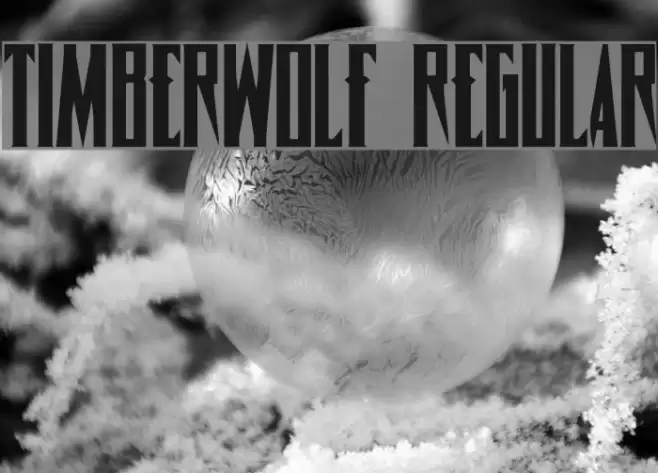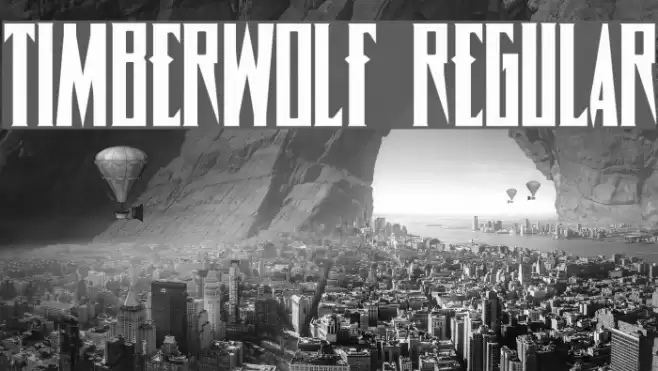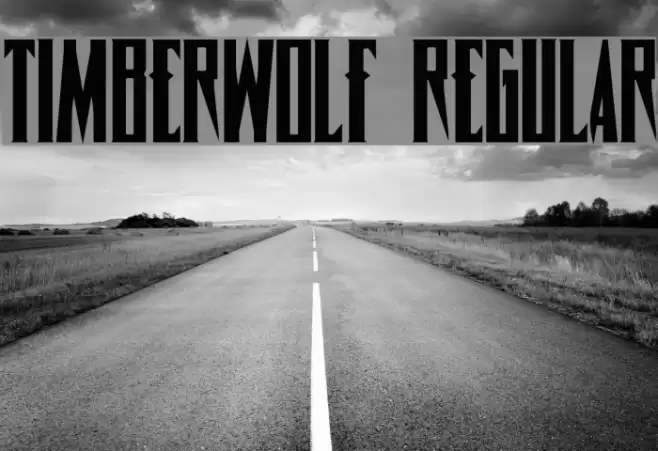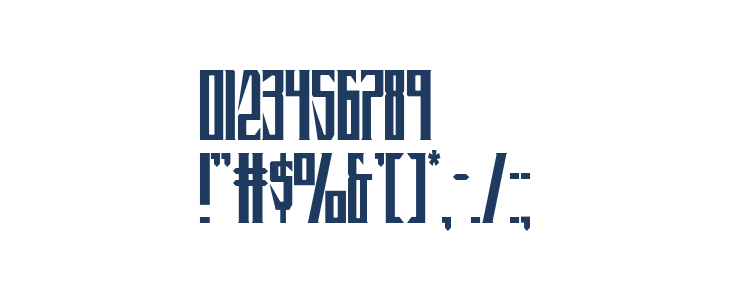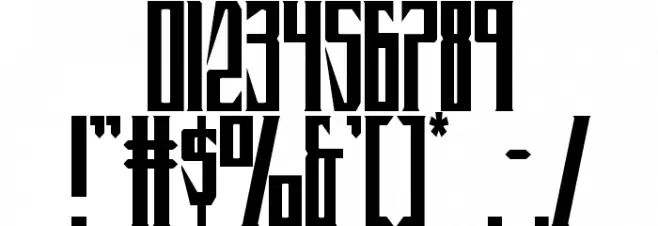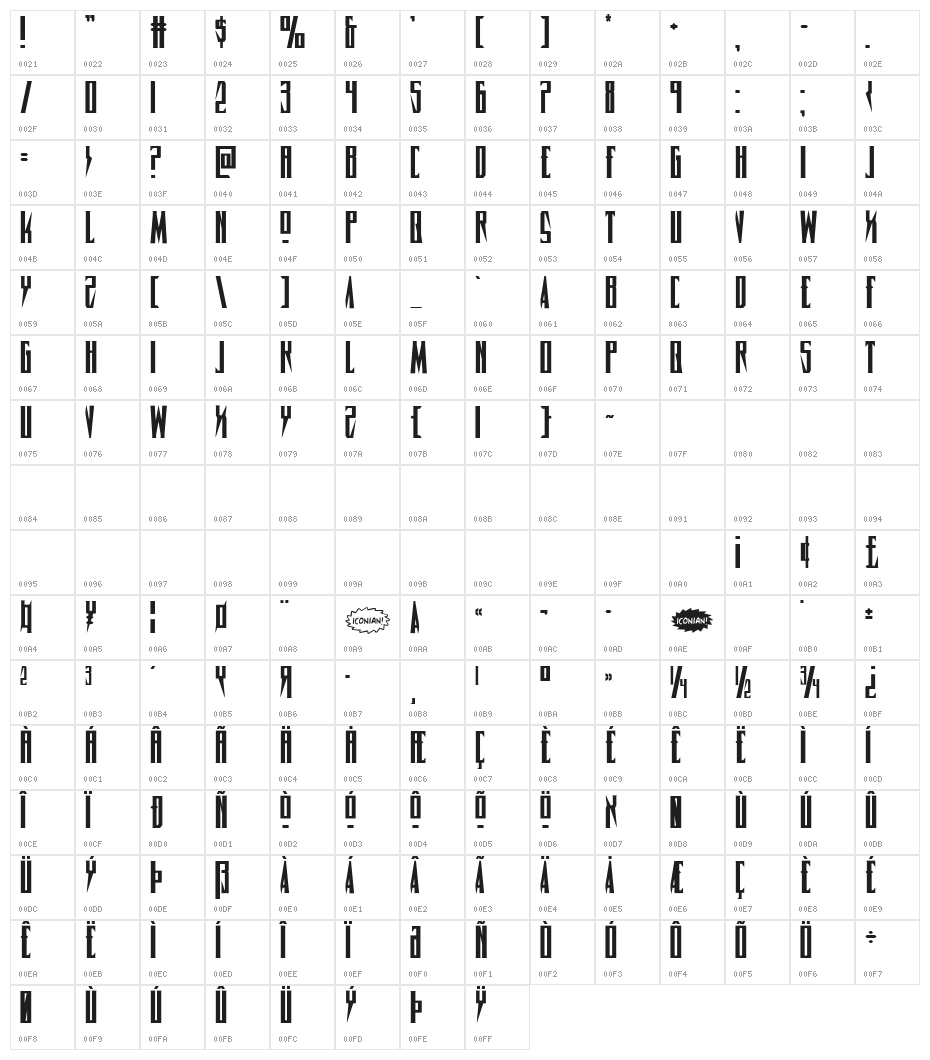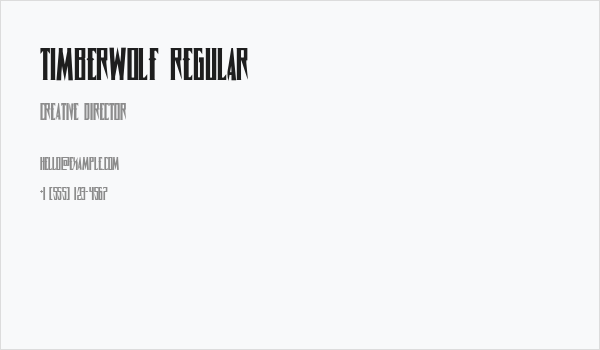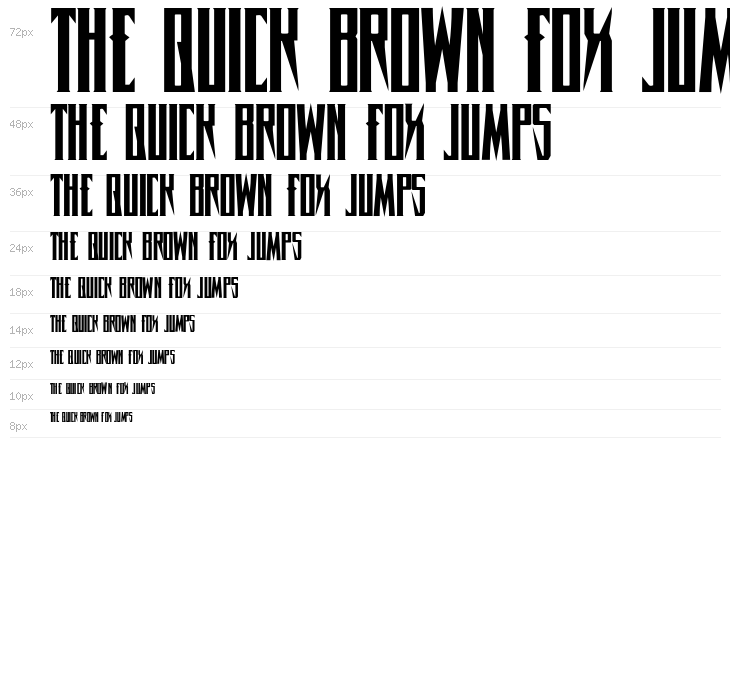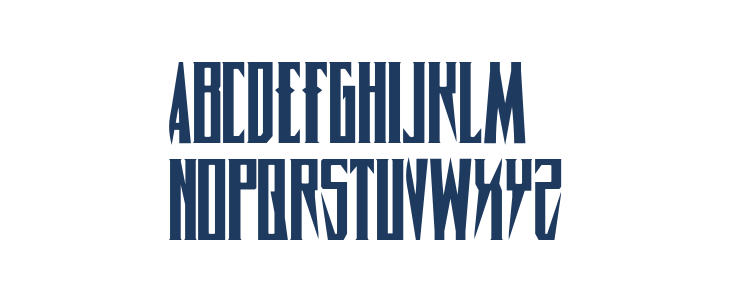
Timberwolf Regular Font
Timberwolf Regular Description
This font features a bold and striking design with sharp, angular edges and a geometric structure. The uppercase letters are tall and narrow, creating a sense of height and drama. The lowercase letters maintain the same angular style, ensuring consistency throughout the typeface. Numbers and special characters are designed to match the bold and edgy aesthetic, making them stand out prominently. The overall appearance is modern and dynamic, suitable for projects that require a strong visual impact.
A bold, angular font with a modern and dynamic style from Uncategorized fonts.
- Proposed Projects: Ideal for posters, album covers, branding, and any design needing a bold statement.